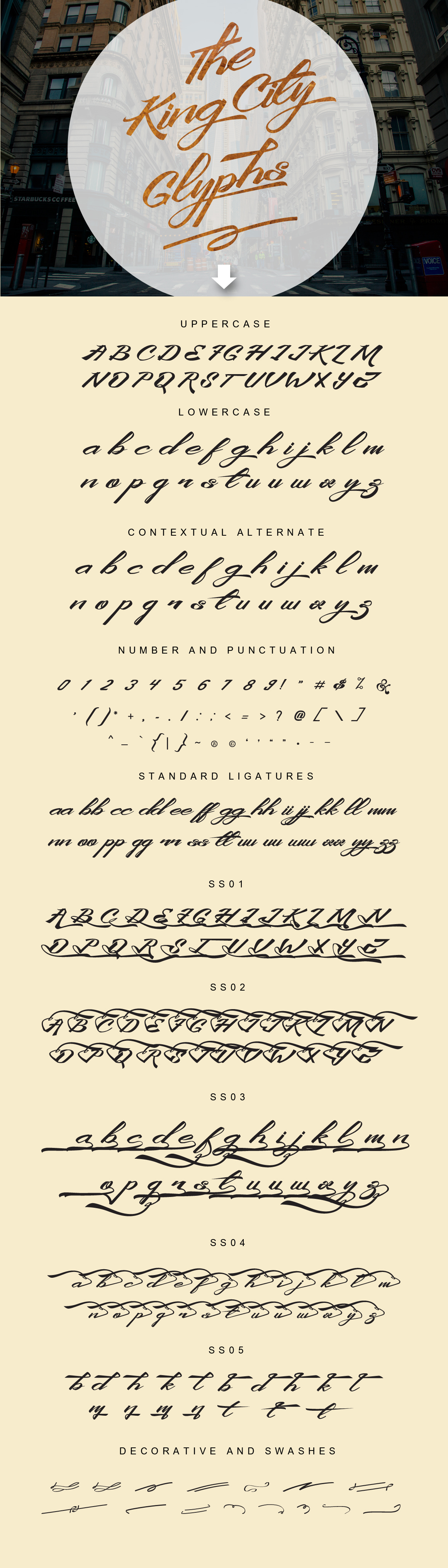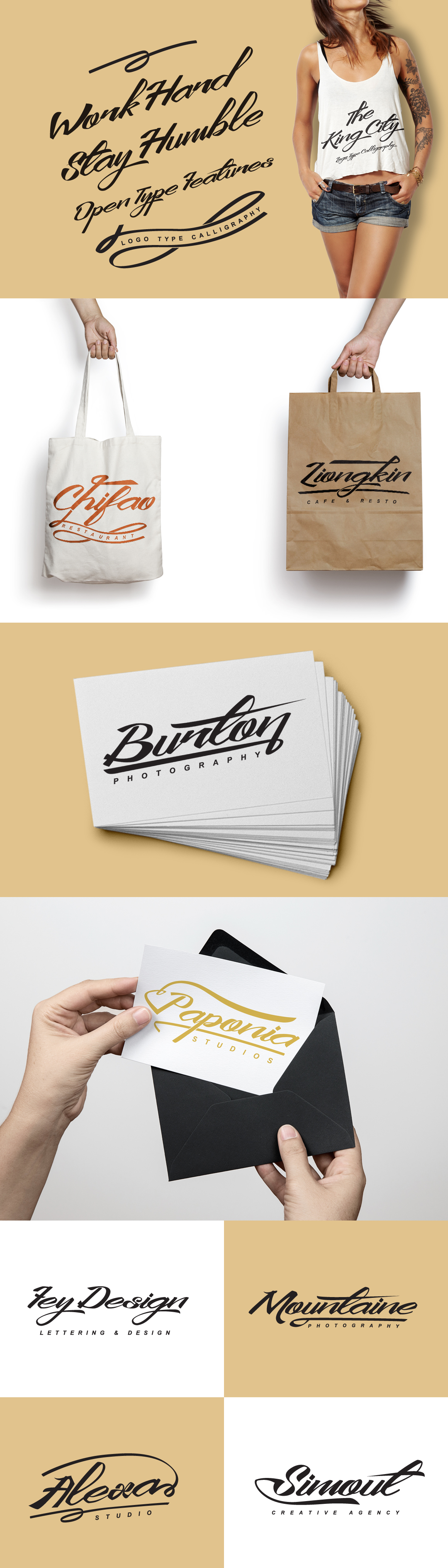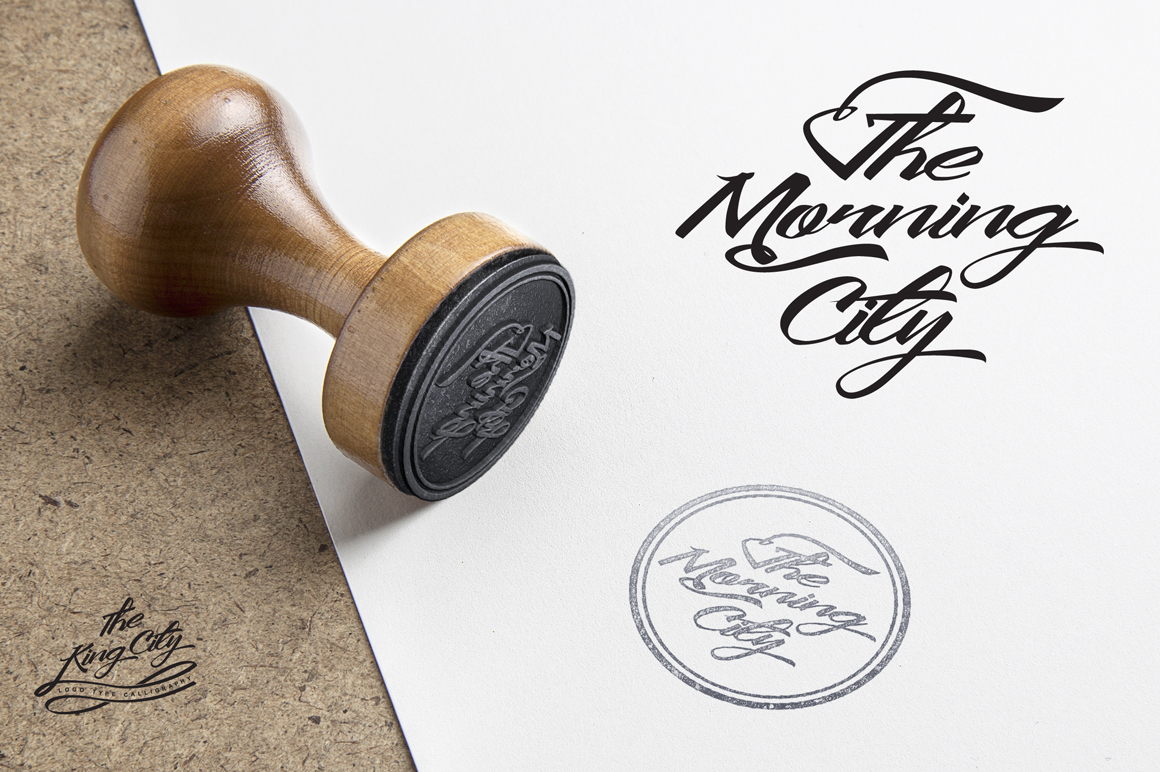
Introduction to King City Font
King City is a beautiful script font, crafted with a logotype feel; this beautiful handwritten font is perfect for giving your designs a branded and vintage appeal with tons of swashes and decorative elements.
King City is a beautiful script font, crafted with a logotype feel; this beautiful handwritten font is perfect for giving your designs a branded and vintage appeal with tons of swashes and decorative
Key Features of King City Font